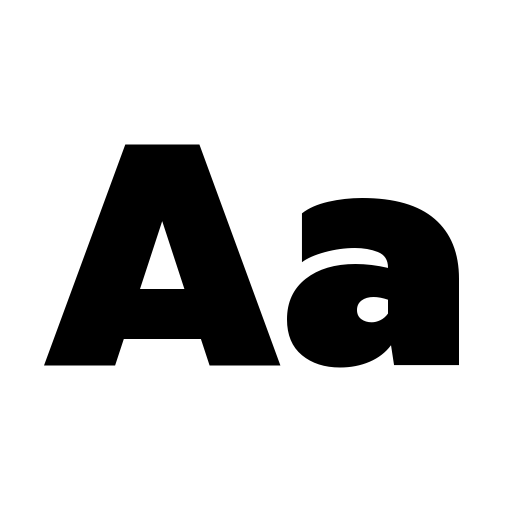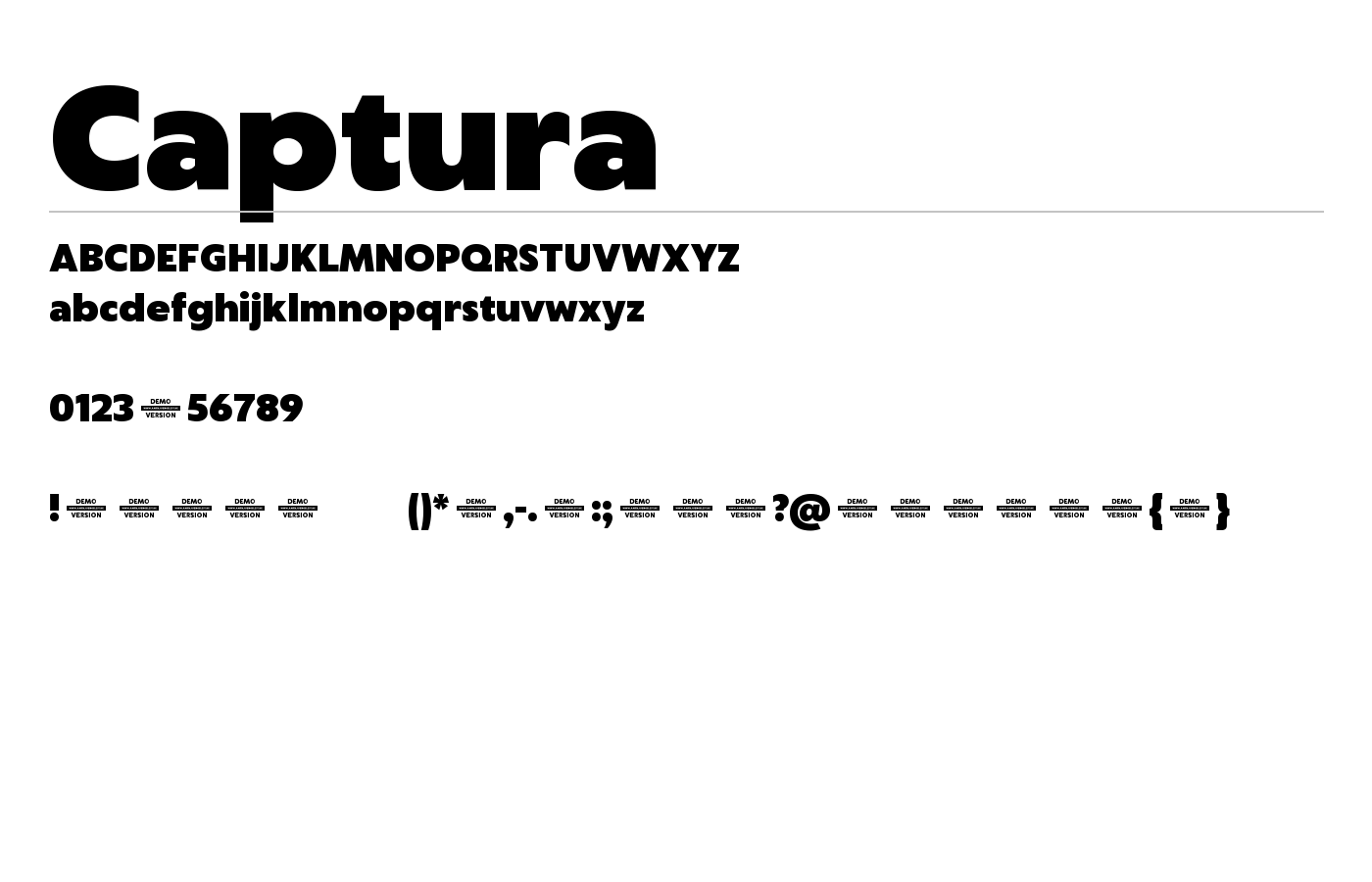
Captura is a bold, modern sans serif font with a strong, geometric presence and high x-height that ensures clear readability and impact. Its thick, uniform strokes and simple, rounded letterforms make it a great choice for attention-grabbing headlines, logos, and branding that aims to convey confidence and contemporary style. This font works especially well in fashion, editorial, and advertising contexts where a bold, clean statement is needed.
Captura Font
About Captura Font
| Font family | Captura Font |
| Designer | Anita Jürgeleit |